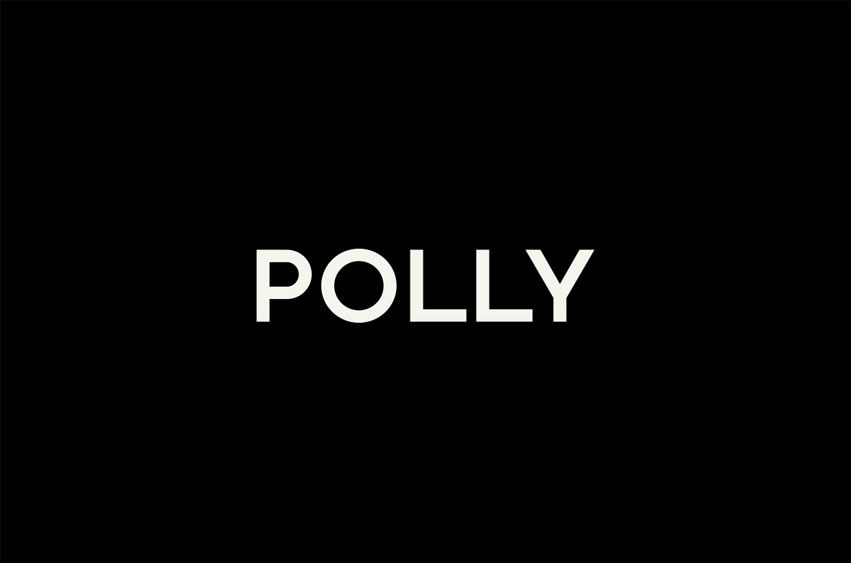
Polly Font
Polly Font is a minimal sans serif, constructed with geometric forms.
This sleek and simple font is extremely useful for a large number of designs, due to its variability and minimal approach to typographic style.